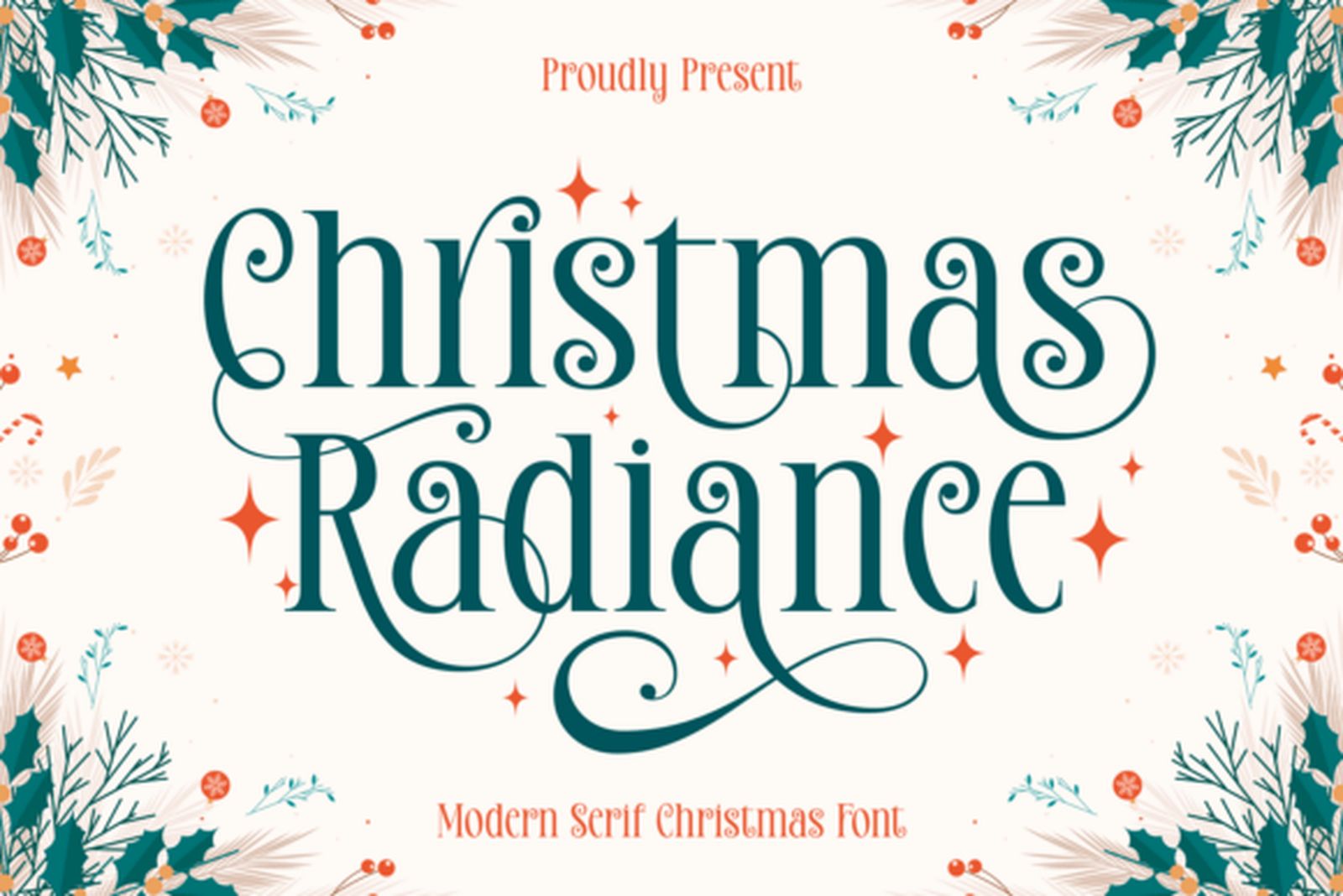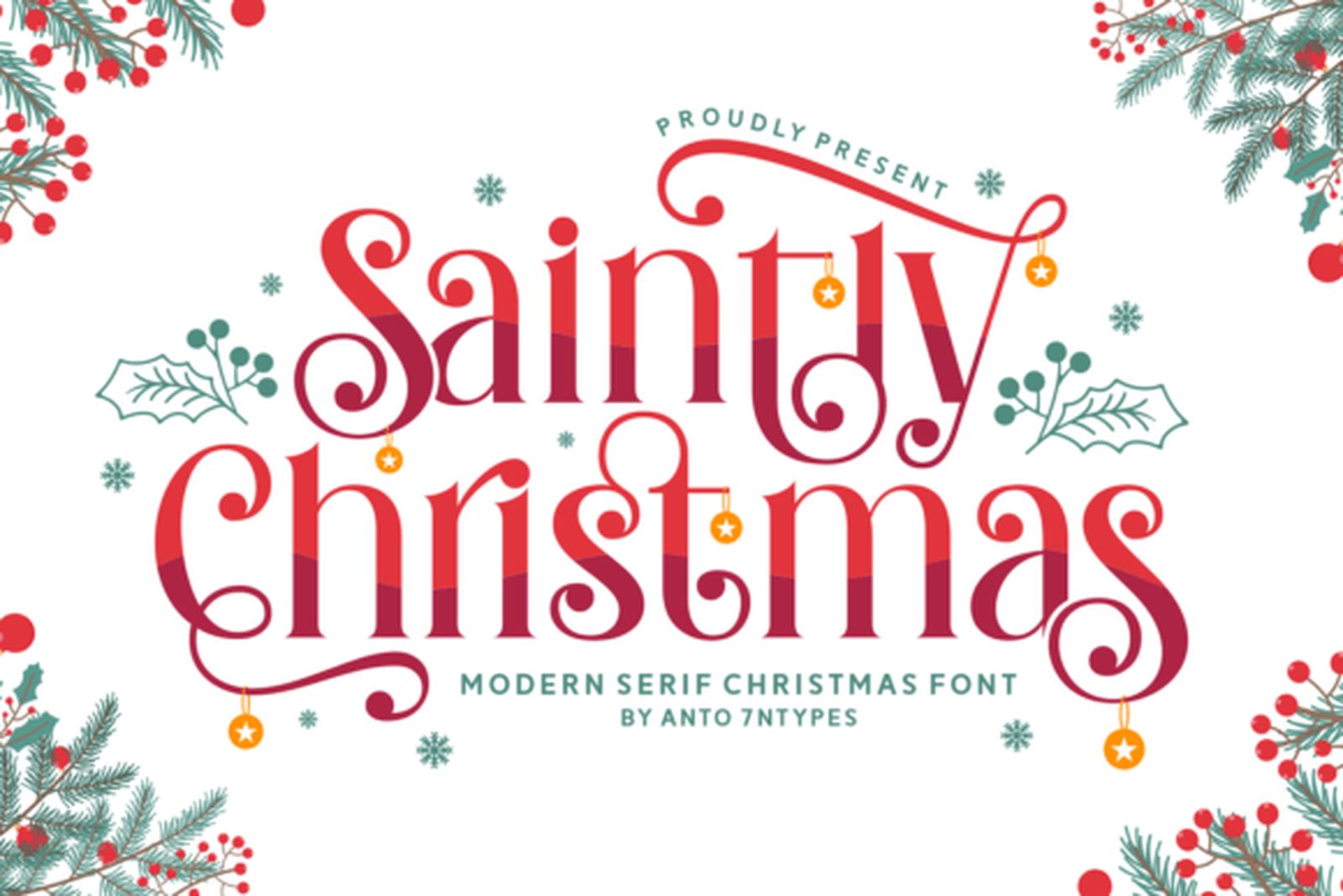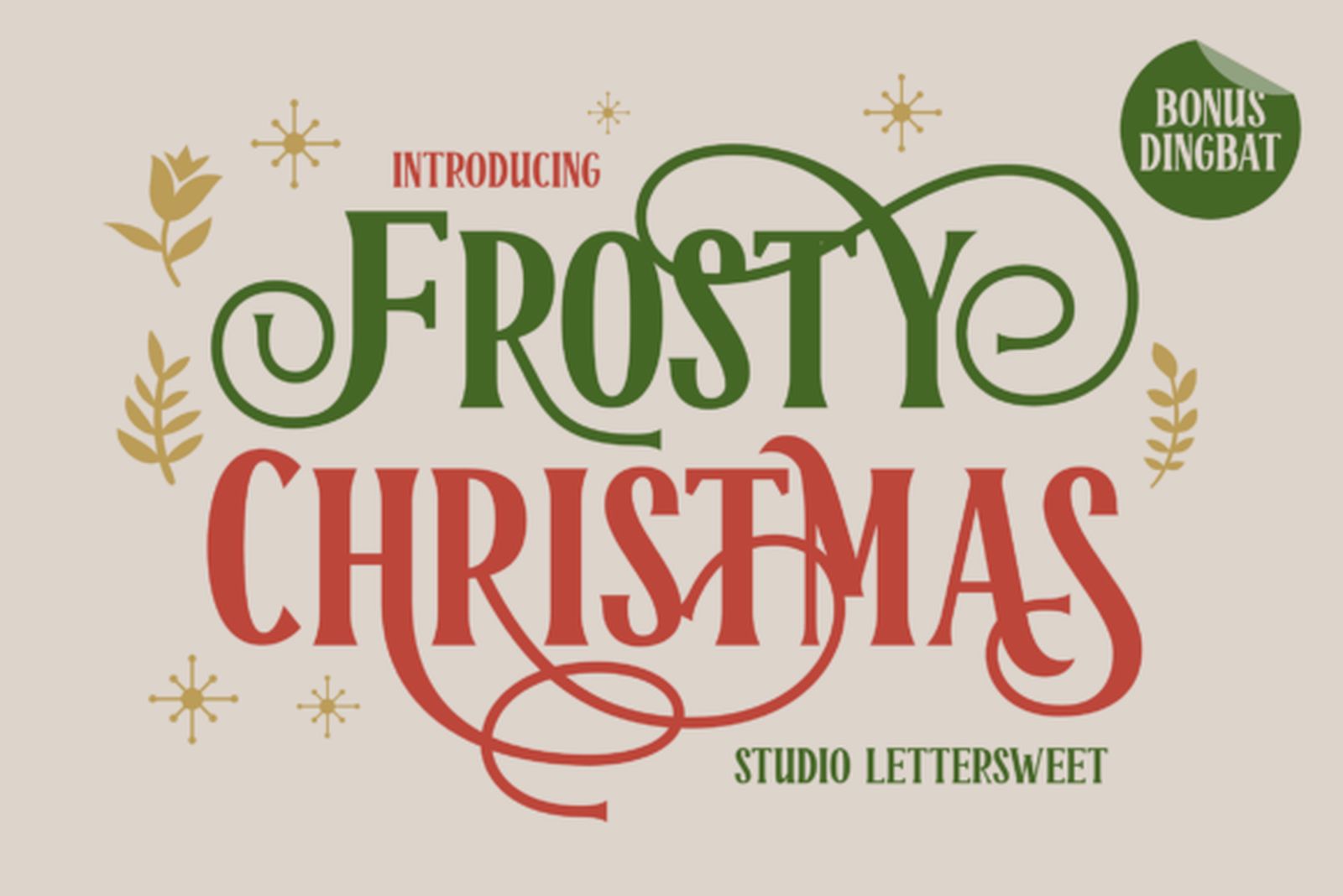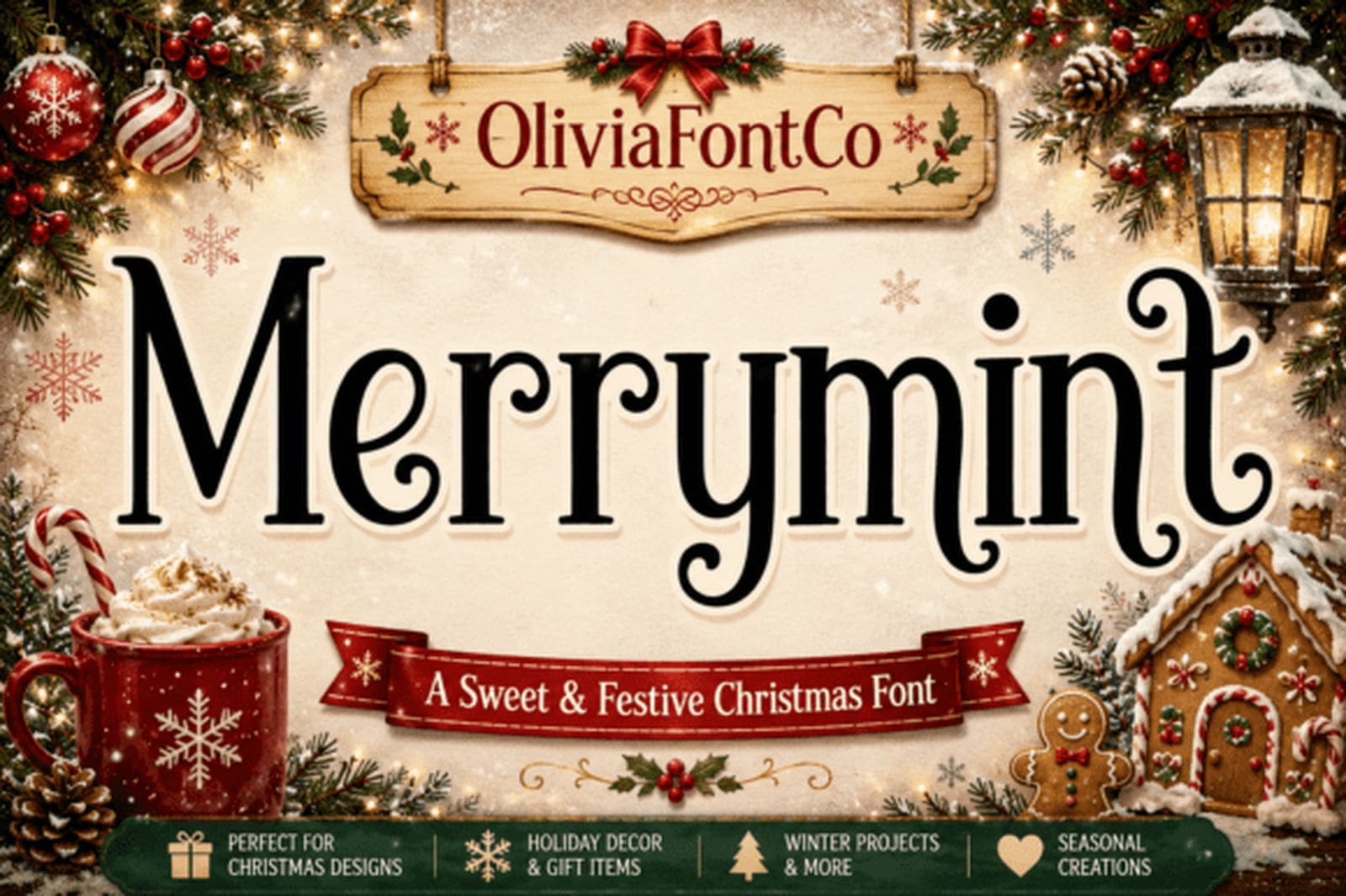
21 Christmas Fonts for Crafters and Small Shops: Holiday Cards, Gift Tags and Cricut Projects
Christmas lettering has a short, busy season. Cards go to print in November, gift tags get cut in early December, and holiday merch has to be ready before anyone searches for it. The font you choose sets the mood before a single word is read: a thin script feels quiet and cozy, a striped display font feels like a party, and a weathered brush face feels like a farmhouse sign.
This collection groups 21 Christmas fonts by the job they do best, from soft handwriting to swashy serifs, bold retro display faces and letters decorated with candy stripes, bows and Santa hats. Each entry notes what the letters look like, where they hold up and where they start to struggle.
Handwritten & Script Christmas Fonts
These fonts carry the feeling of a note written by hand. They suit greeting cards, gift tags and short messages where warmth matters more than impact.
1. Ribbon Christmas Font
By Ahappycraft
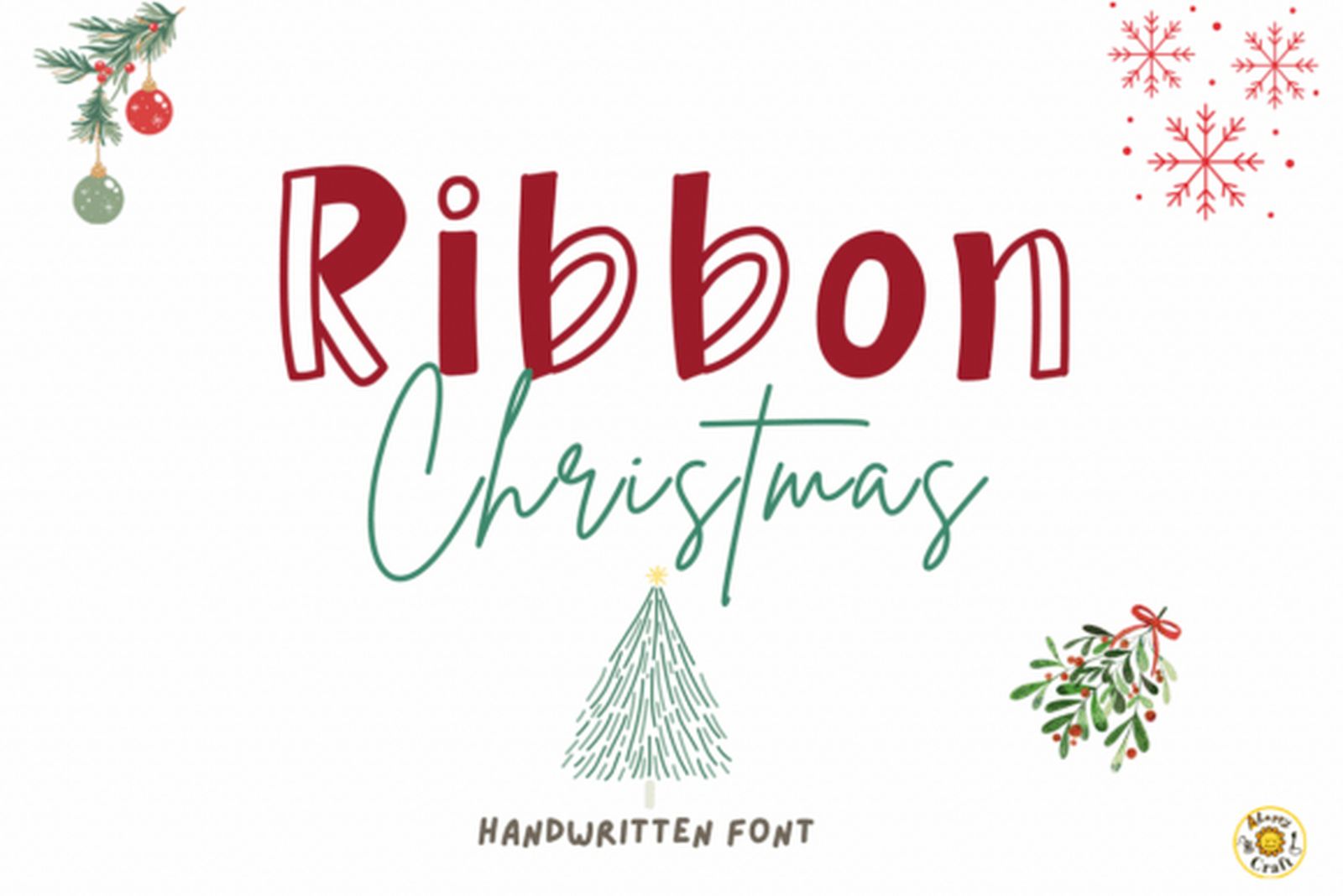
Best For: kids’ Christmas cards, party invitations, craft packaging
Ribbon Christmas Font is a bold handwritten display font with chunky letters and small irregularities, the kind you see on hand-drawn holiday crafts. The uneven edges keep it from looking stiff, and the weight gives it enough presence to work as a headline.
The author suggests it for kids’ projects, cards and party invitations, and also for year-round branding, signage and packaging. Give it a little extra letter spacing on small labels so the chunky shapes don’t crowd each other.
2. Everfrost Christmas Duo Font
By Jinan Studio
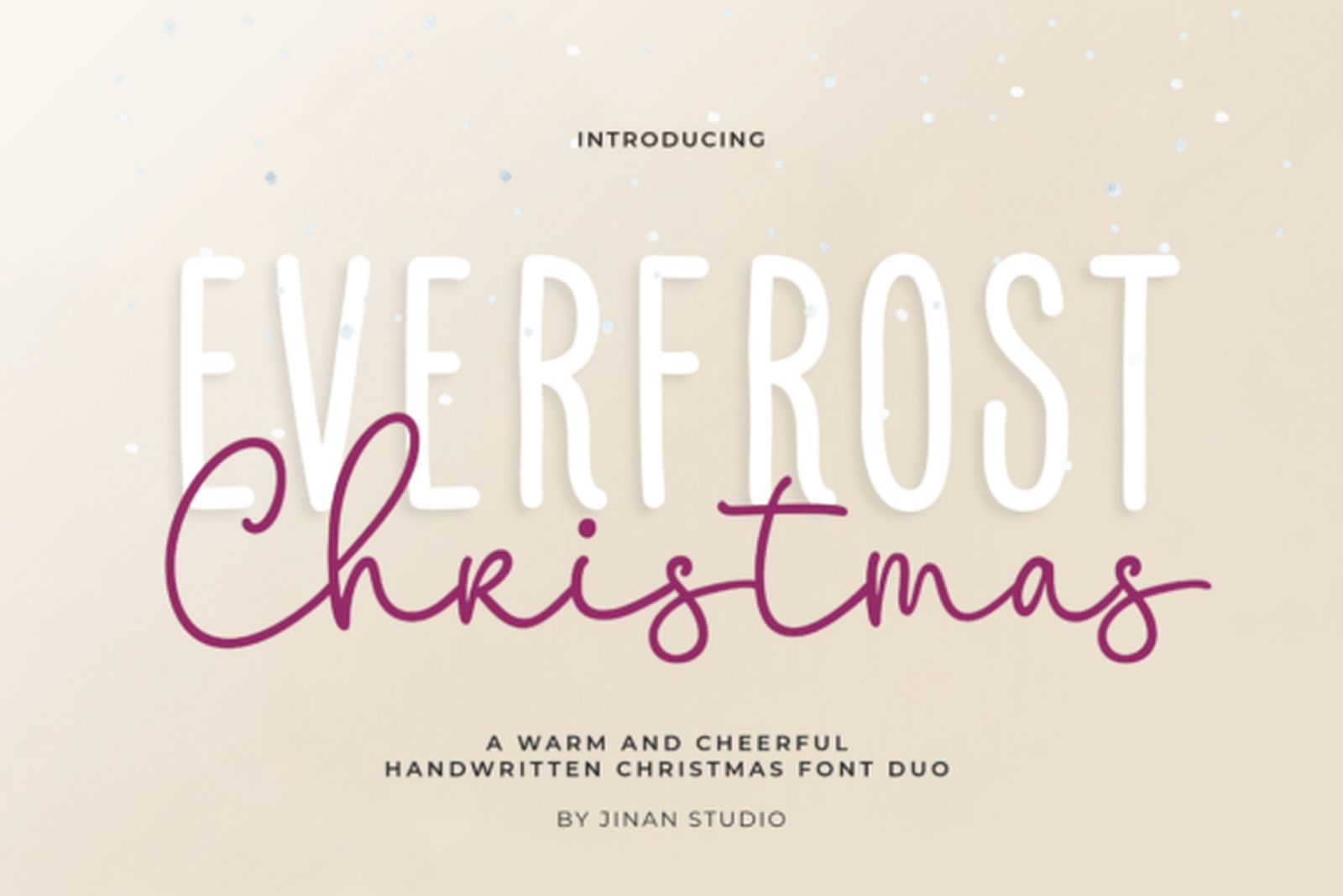
Best For: minimalist holiday cards, gift tags, calm winter branding
Everfrost Christmas Duo Font pairs tall, narrow, thin capitals with a light handwritten script. It is the quietest set in this collection: no heavy strokes, no ornaments, just a clean frame and a soft signature line.
Set the capitals as a small header and let the script carry the main word, or the other way around for a greeting card. Because both styles are light, they look best on plain backgrounds and in generous sizes.
3. Whimsy Christmas Font
By Issie_Studio
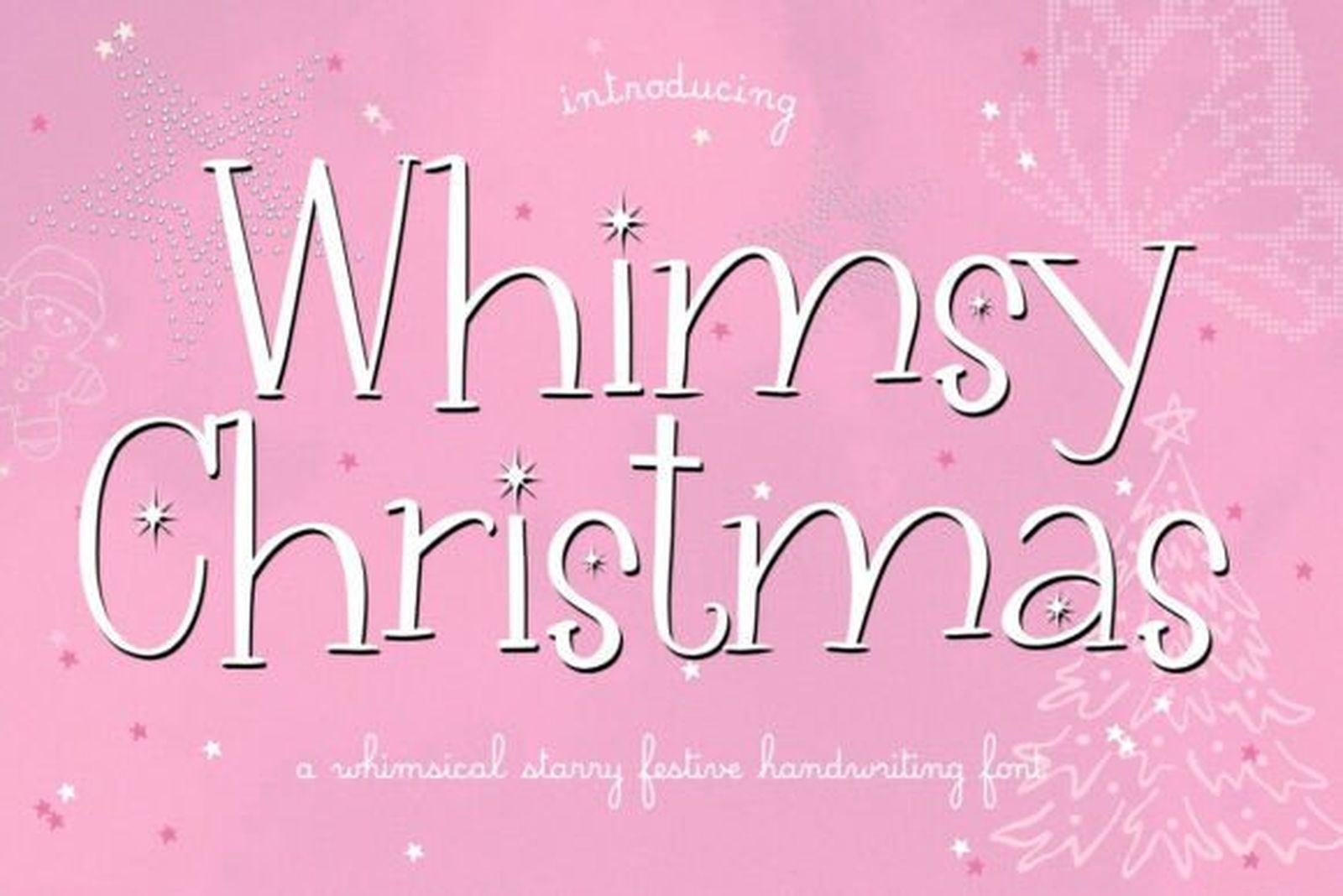
Best For: T-shirt designs, stickers, scrapbook pages
Whimsy Christmas Font is a delicate handwritten style with small starry details built into the letters. The product gallery shows both uppercase and lowercase, so it works for full phrases, not only single words.
The line is thin, so keep it large: on a T-shirt, a card front or a sticker it reads well, while tiny print makes it fade. The font is PUA encoded, which means the extra characters sit in a separate part of the font and need a character map or font manager to insert.
4. Happiness Christmas Font
By Oto Maker
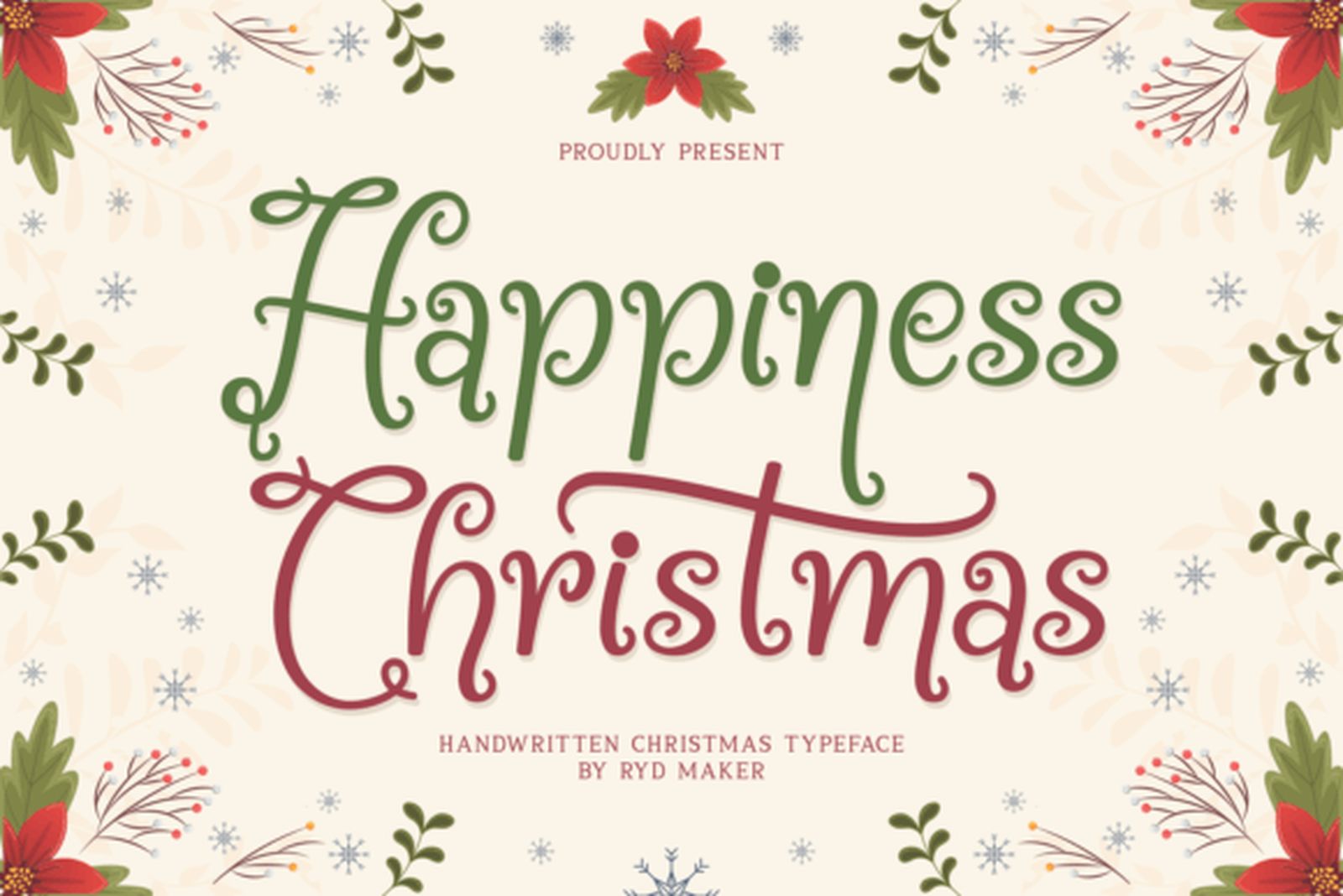
Best For: “Merry Christmas” card fronts, holiday tags, family photo overlays
Happiness Christmas Font is a looped handwritten script with soft, rounded connections. The loops give it a relaxed, friendly rhythm that feels closer to a handwritten wish than to formal calligraphy.
It shines on one or two words set large, such as a greeting over a photo. Pair it with a simple sans serif for dates or names, and avoid all caps, since script capitals joined together lose their flow.
5. Merry Christmas Duo Font
By TINY GRAPHIX
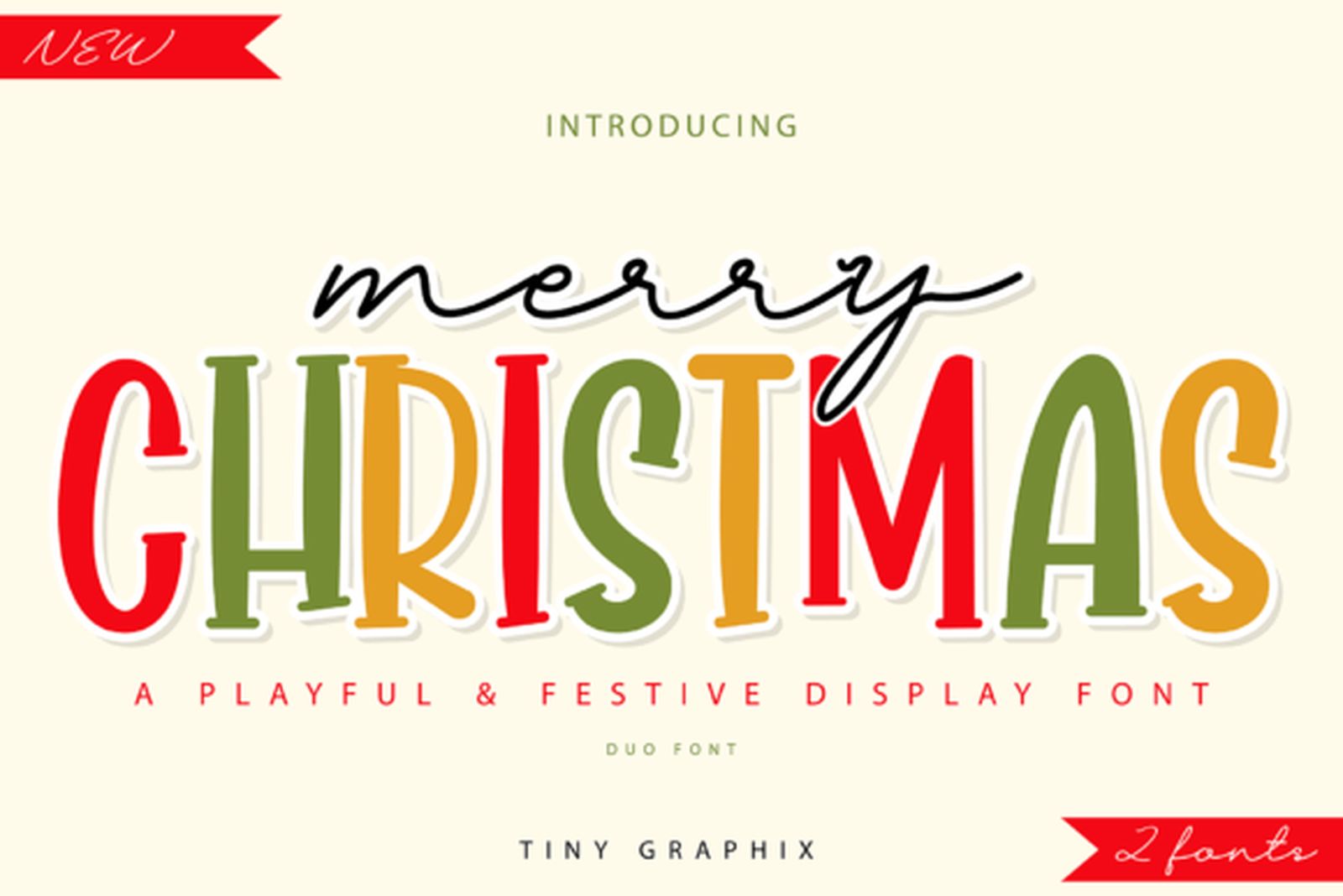
Best For: playful card layouts, festive quote prints, party signs
Merry Christmas Duo Font is a two-font set: a bouncy handwritten script and tall display capitals with a striped, candy-cane feel. The contrast between the two is the point, one loose and one structured.
Use the script for the lead word and the capitals for the phrase underneath, the way the preview stacks “merry” over “Christmas.” This kind of pairing saves time, since you don’t have to hunt for two fonts that match.
6. Scribble Christmas Font
By Dreamspace.studio
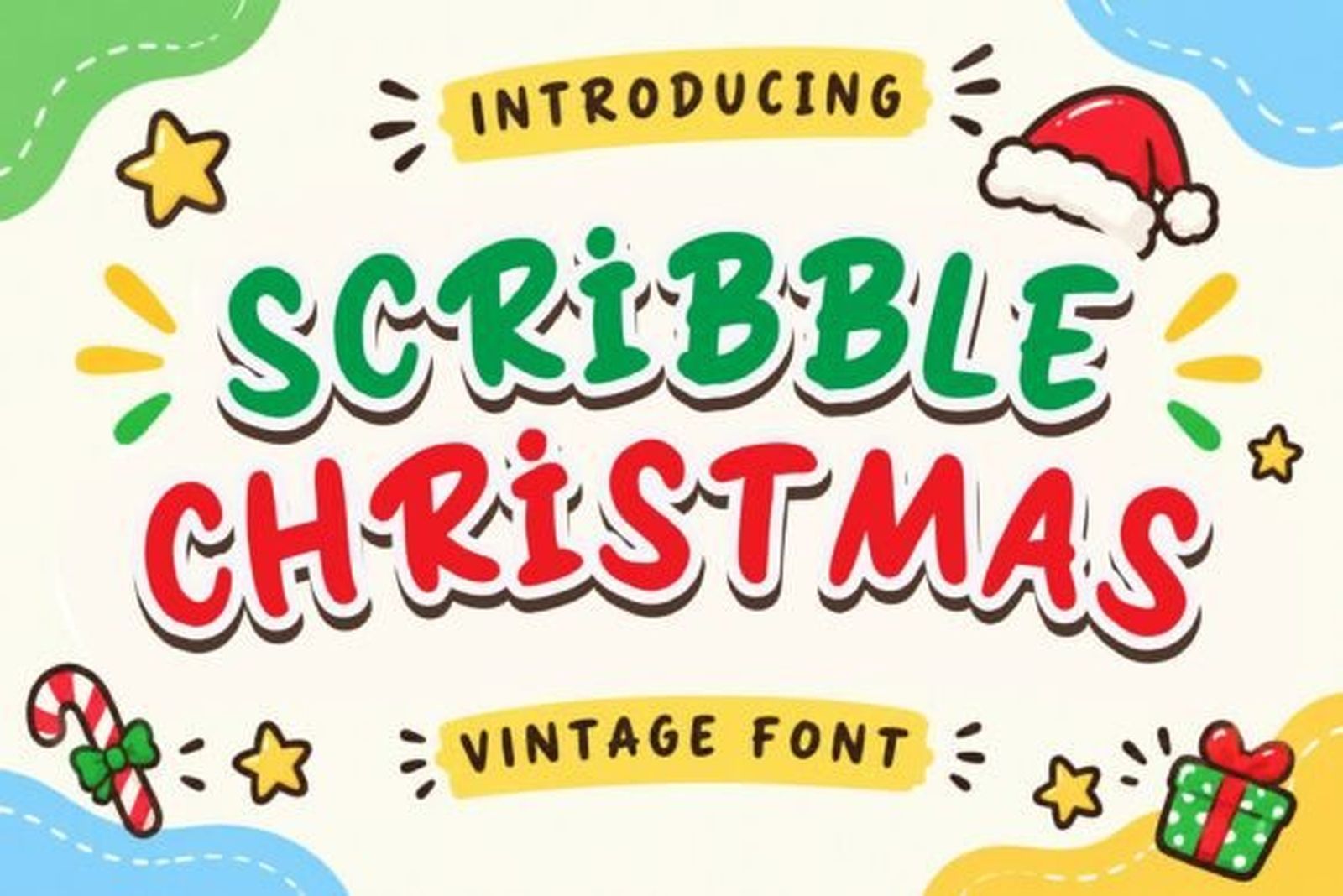
Best For: gift labels, printable planners, DIY holiday crafts
Scribble Christmas Font is a handwritten display typeface inspired by doodles. The strokes are bold and drawn by hand, and the letters bounce slightly up and down, which gives the text a lively, homemade look.
The author notes it can be used in Cricut, Silhouette, Procreate, Canva, Photoshop and Illustrator, meaning you upload the font file to these programs yourself. The bounce is charming in short labels and headings; in a long paragraph it gets tiring to read.
Choose fonts with simple, solid shapes, such as Twinkle Magic Font or Party Christmas Font. Save thin scripts, textures and decorated letters for larger headlines.
Pick One Mood and Build Around It
The easiest holiday designs start with a single decision: cozy, elegant, retro or playful. Choose one font from the matching group, pair it with a quiet supporting font, and use the same combination across your cards, tags and packaging. A consistent look makes a small shop’s Christmas collection feel planned, and it saves you from rethinking every piece from scratch.